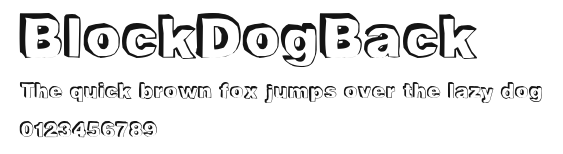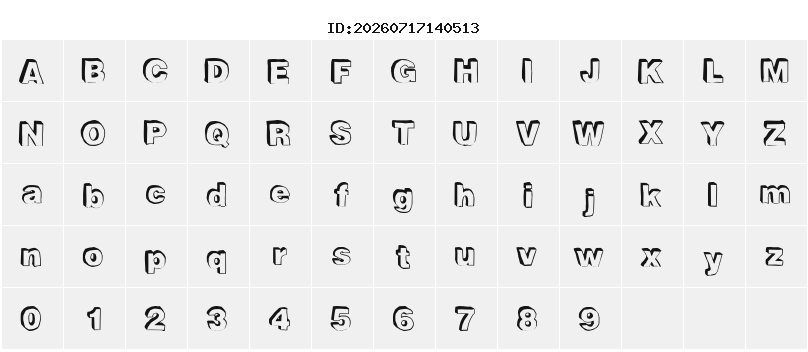
BlockDogBack Preview
• Font Name: BlockDogBack
• Font ID: BlockDog Back
• Full Font Name: BlockDogBack
• Version: Cool Fonts Version 1.2 7/13/97
• PostScript Name: BlockDogBack
• Character Count: 175
About BlockDogBack.ttf
BlockDogBack.ttf is a modern, elegant sans-serif font designed for ultimate readability and visual harmony. Perfect for branding, headlines, web design, and print materials.